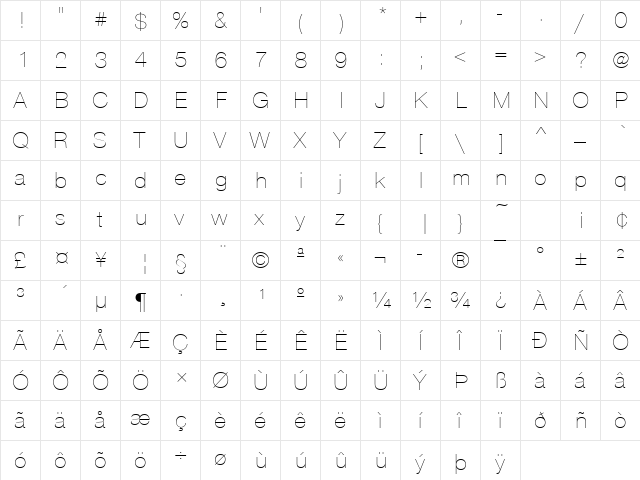
NimbusSanNovTUltLig Regular
NimbusSanNovTUltLig is a composed and adaptable typeface that performs quietly and consistently across a wide range of design contexts.